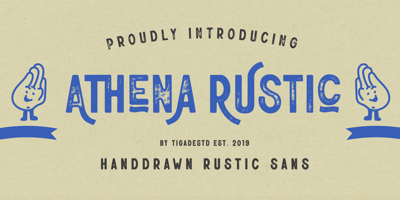
Athena Rustic
Athena Rustic font
Athena Rustic Font Family was designed by Doli Harahap and published by Tigade Std. Athena Rustic contains 4 styles and family package options. Athena is a handdrawn rustic sans serif font yet still looks elegant. It offers a professional look in one way and you serve in a retro look in another occasion. It is beautifully handdrawn on a paper to give the natural feeling to the shape for each characters. The texturized rustic effect give a retro and vintage style to your design.Athena Rustic features upper cases only at the moment but will have the lowercase update in the roadmap. It also standard International Characters. Of course it comes with bunch of alternates, numeral as well as the punctuations.The font family includes 2 styles: Athena Rustic Regular Athena Rustic Italic Athena Regular Athena Italic That’s a wrap! I do really hope you like this font, and please don’t hesitate to contact me if you have any questions. Also, drop by to our instagram! www.instagram.com/tigadestdTigadestd | Doli Harahap